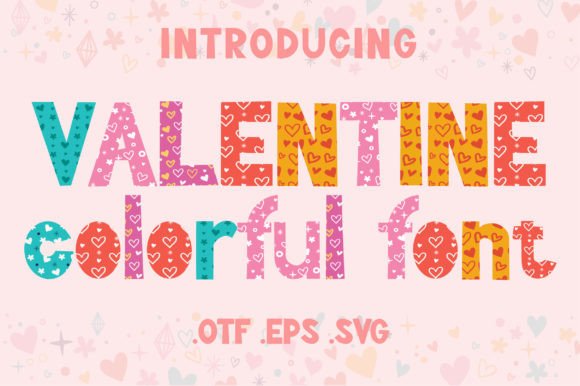
Welcome to the realm of Valentine Colorful Font, a typographic tribute to the most loving day of the year, Valentine's Day. This charming color font is a feast for the eyes, filled with mesmerizing patterns that evoke the essence of romance and adoration. Created by the talented NN-Font Design, Valentine Colorful Font is a captivating font family that instantly elevates any project with its heartwarming charm.
Step into a world where letters are adorned with delicate hearts, whimsical swirls, and enchanting motifs, all coming together to create a visual symphony of love and affection. Embrace the magic of Valentine Colorful Font and let your designs radiate with a touch of pure bliss. The intricate details and vibrant hues of this font will transform your words into works of art, captivating the hearts of your audience and spreading joy wherever it's seen.
With Valentine Colorful Font, you'll discover a font family that speaks the language of love in a thousand different ways. Its versatility knows no bounds, making it the perfect choice for a wide range of projects, from heartfelt Valentine's Day cards and invitations to enchanting logos, branding materials, and social media posts. Imagine your designs blooming with affection as you weave the letters of Valentine Colorful Font into captivating compositions that leave a lasting impression.
Transport yourself to a realm where typography and romance dance together, where every letter is a symbol of love and devotion. Let Valentine Colorful Font be your guide on this enchanting journey, inspiring you to create designs that touch the soul and spread joy to all who behold them.